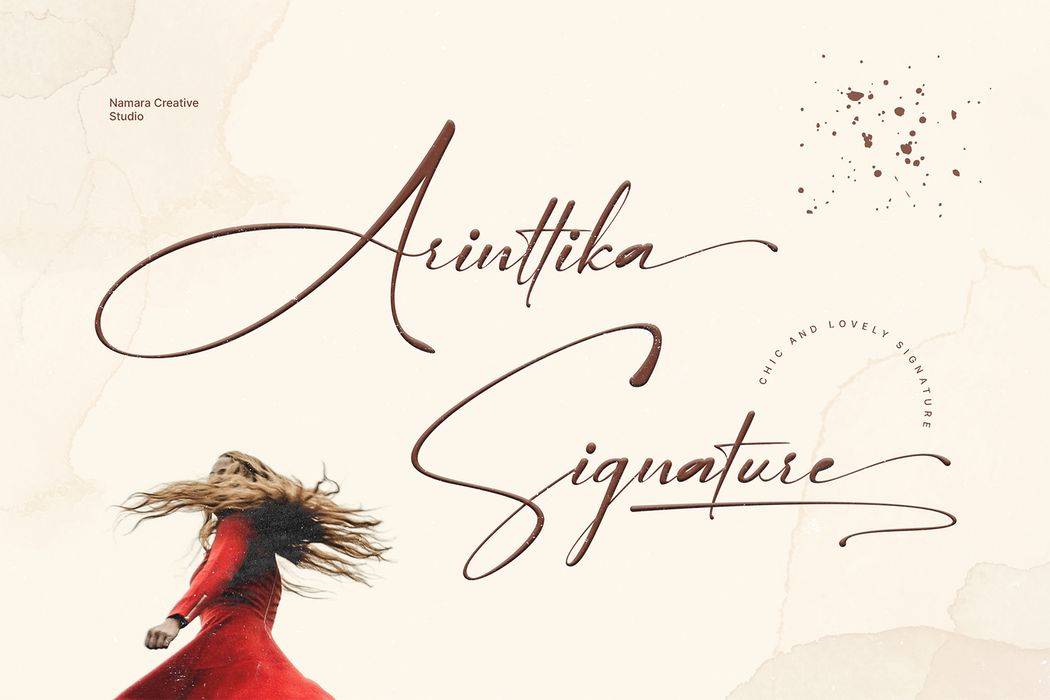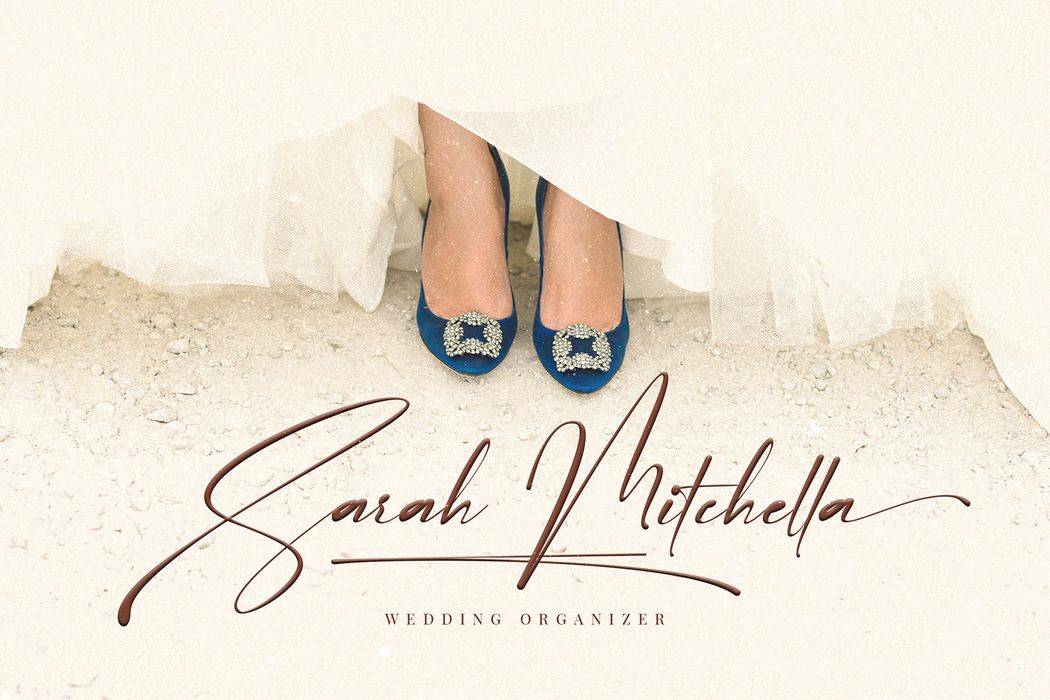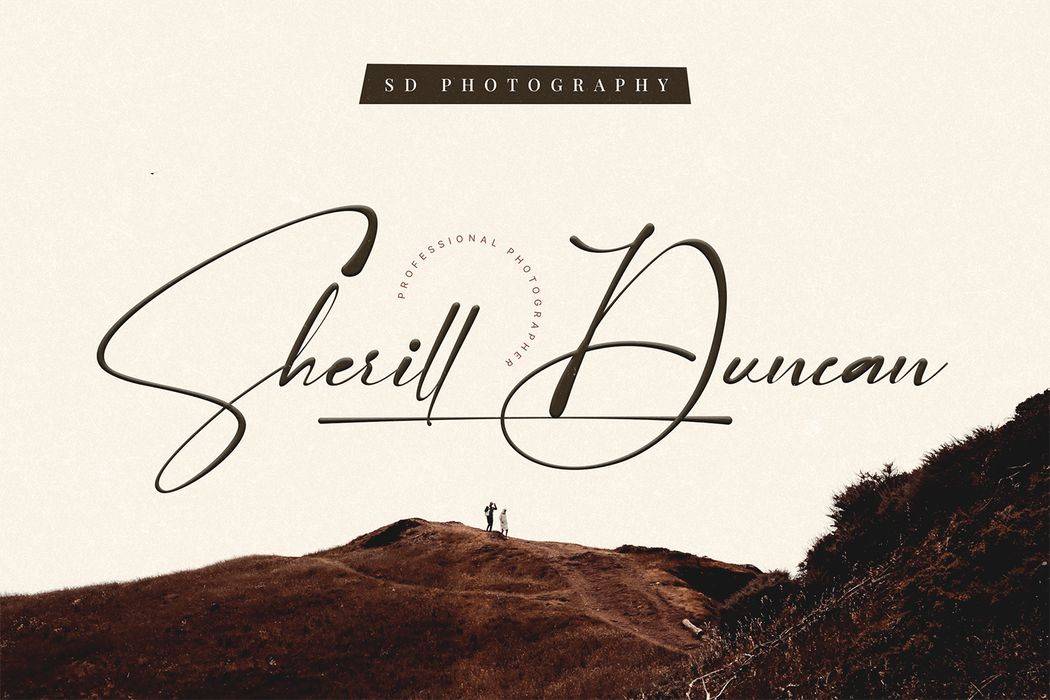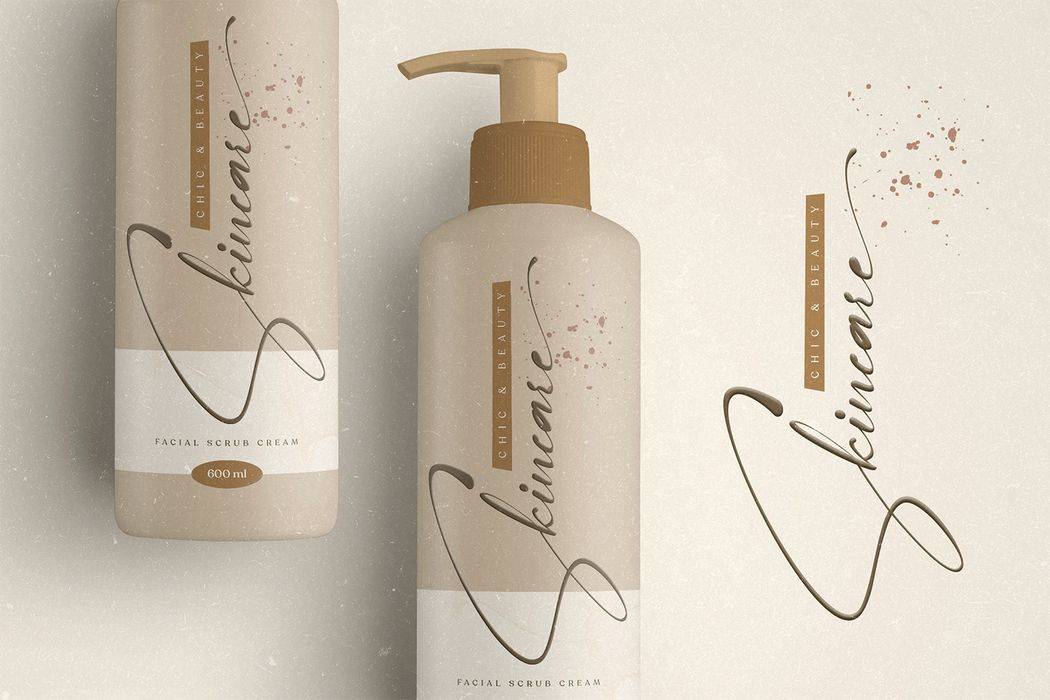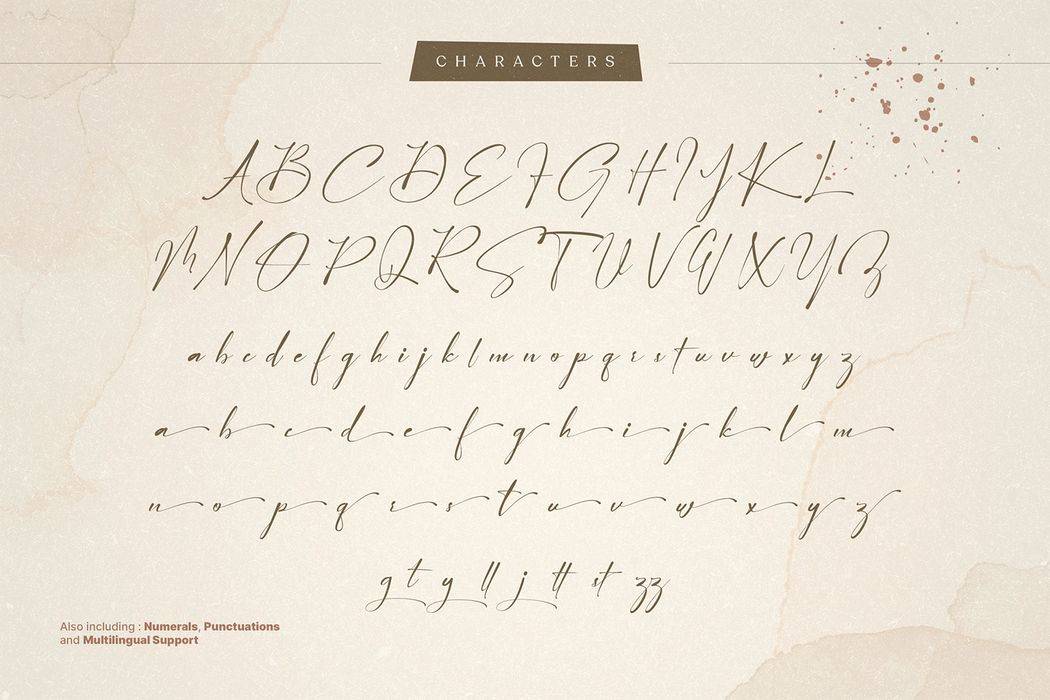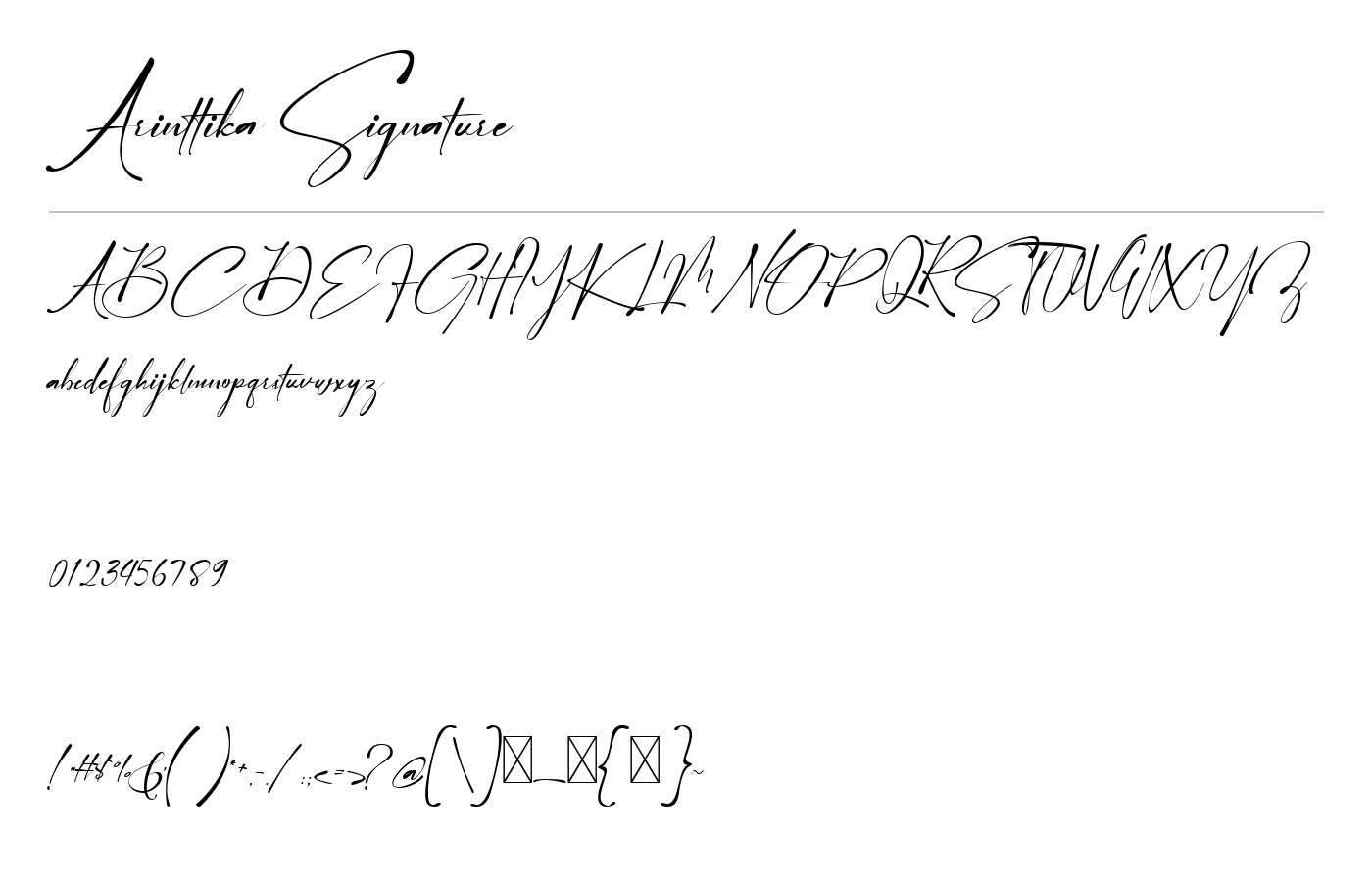
Arinttika Signature is an elegant script font characterized by its delicate, flowing strokes and slender, graceful letterforms. With a high contrast between thick and thin lines and a handwritten feel, it exudes a sophisticated yet personal style, perfect for luxury branding, wedding invitations, and artistic logos. This font shines in contexts that call for refined, stylish, and expressive typography that feels both modern and timeless.
Arinttika Font
About Arinttika Font
| Font family | Arinttika Font |
| Release date | 2020-12-27 |
| Designer | Eep Apringga | Namara Creative Studio |